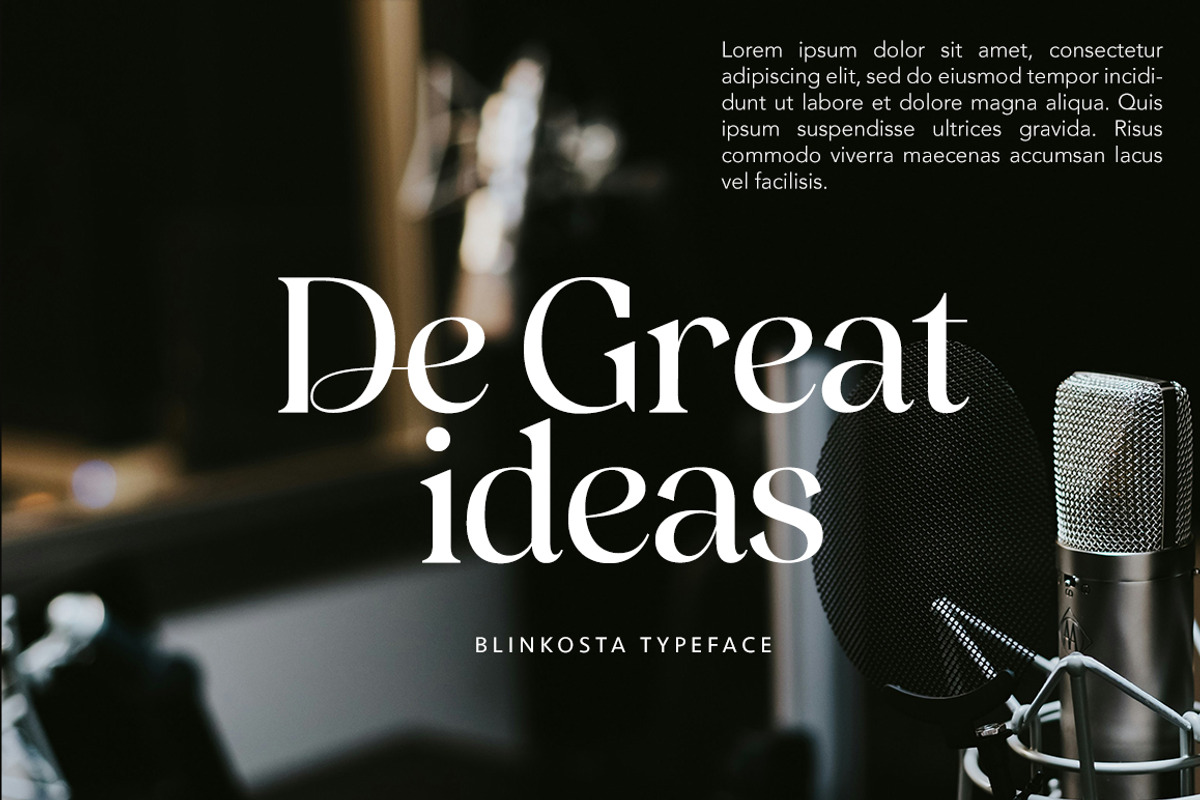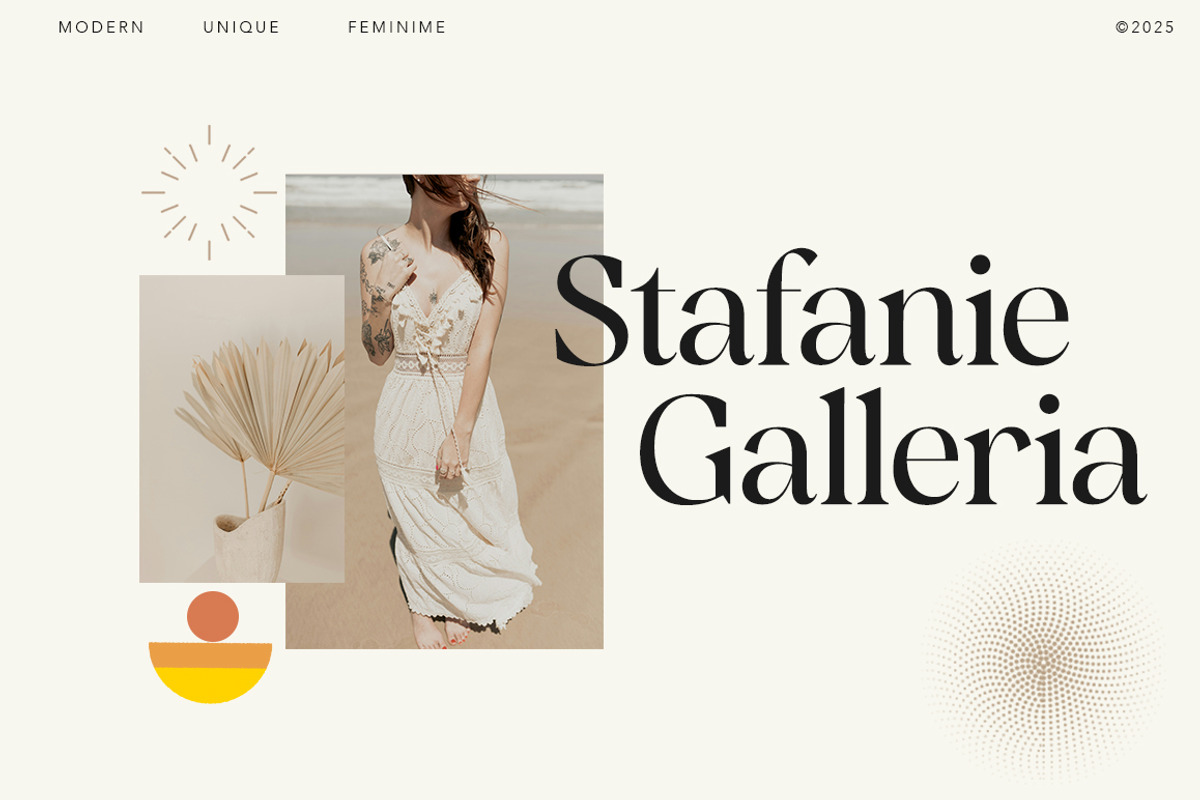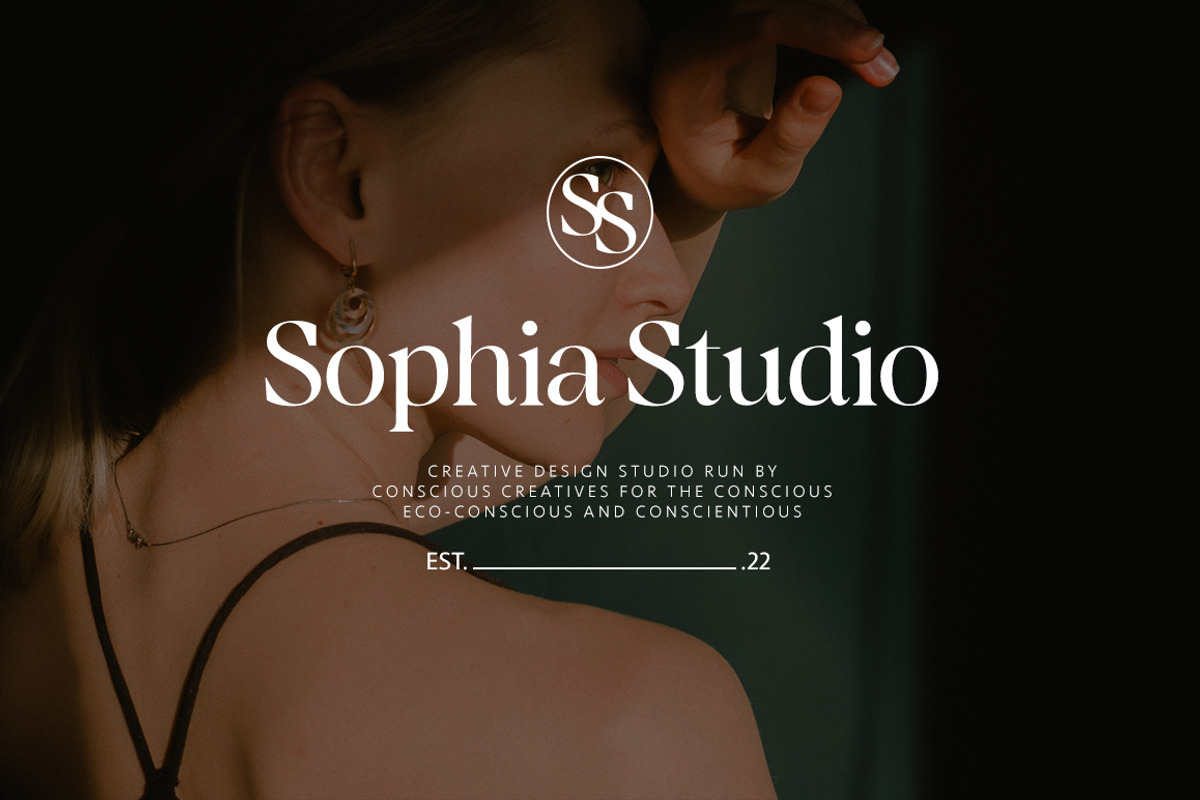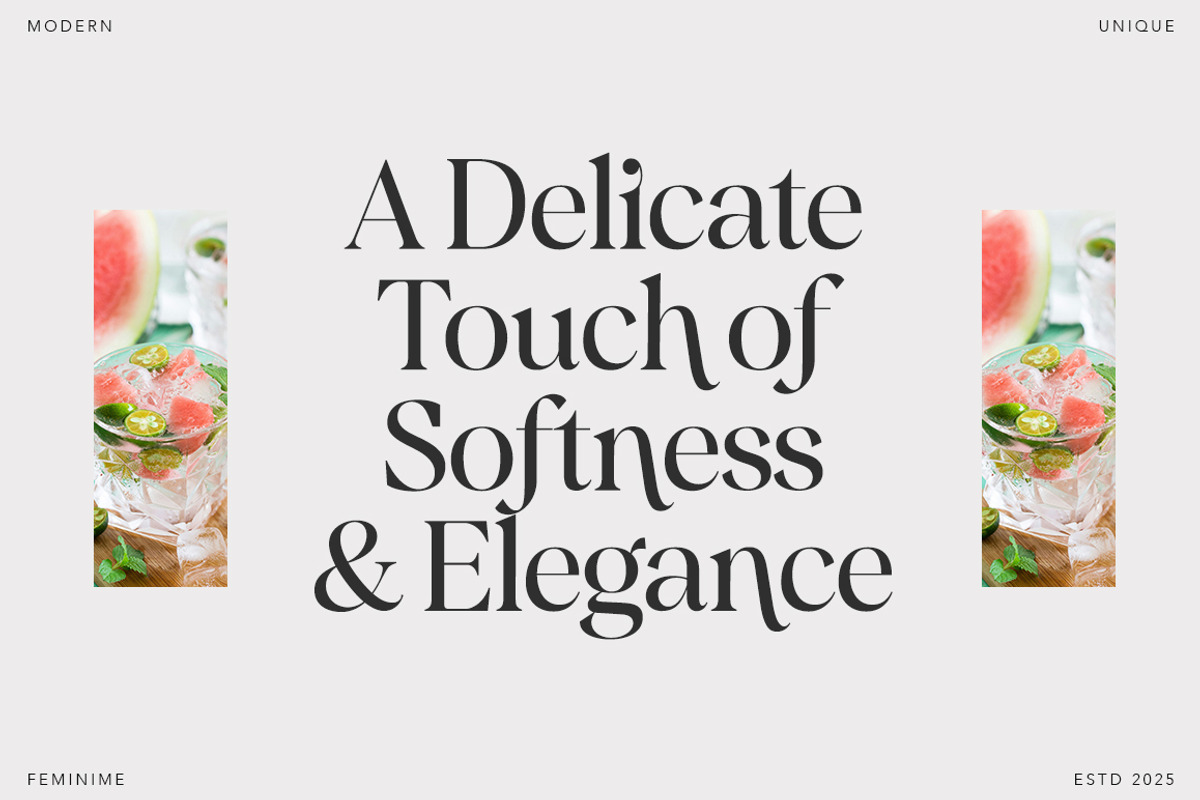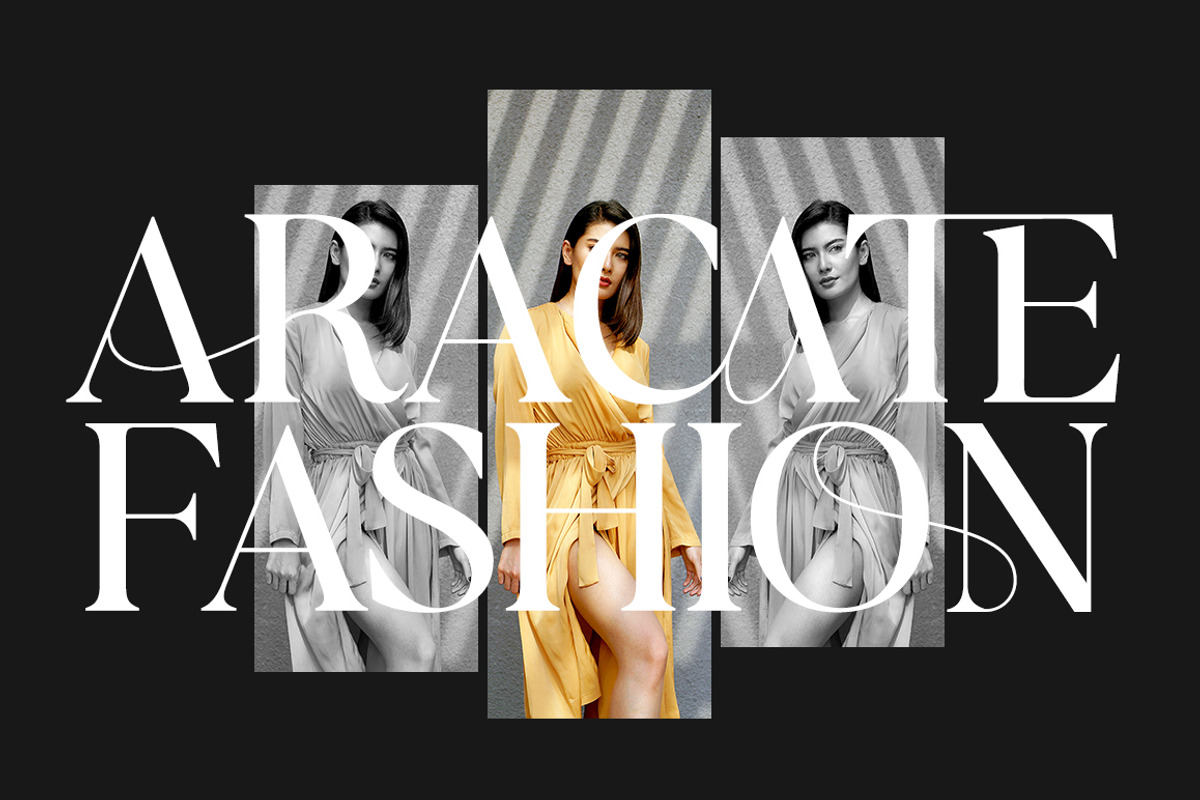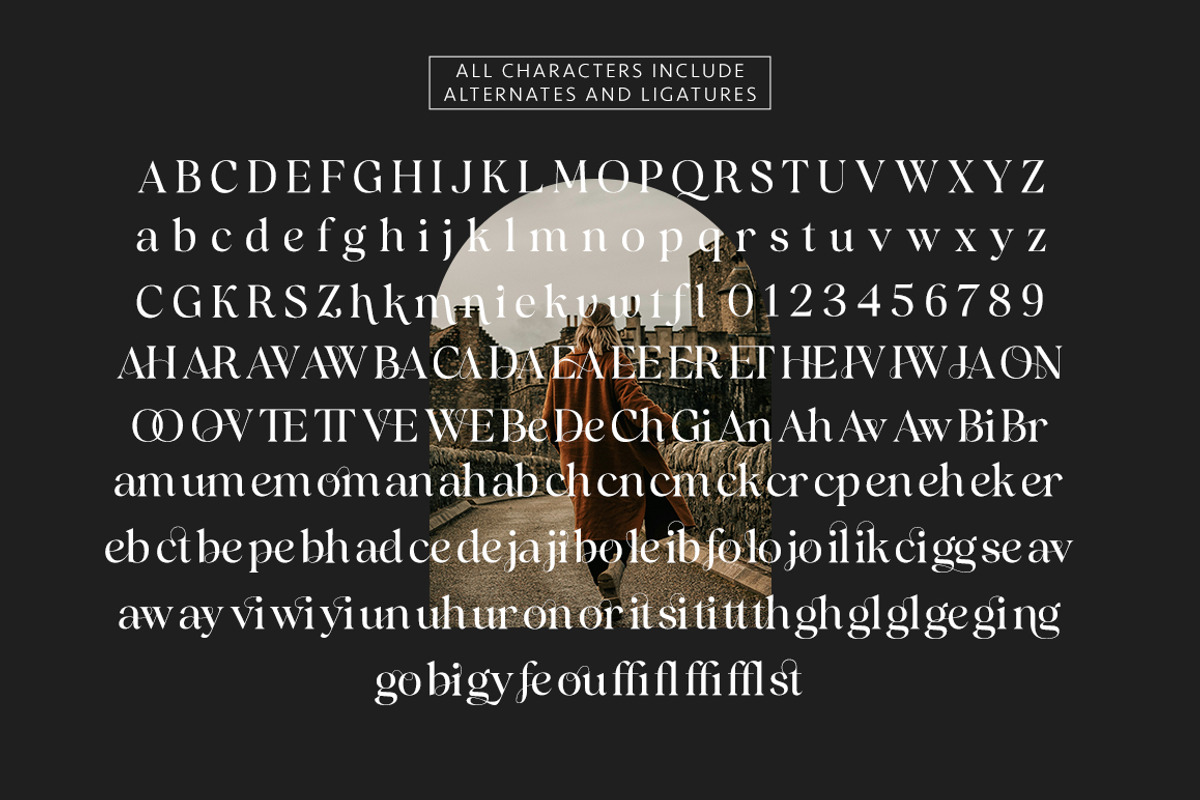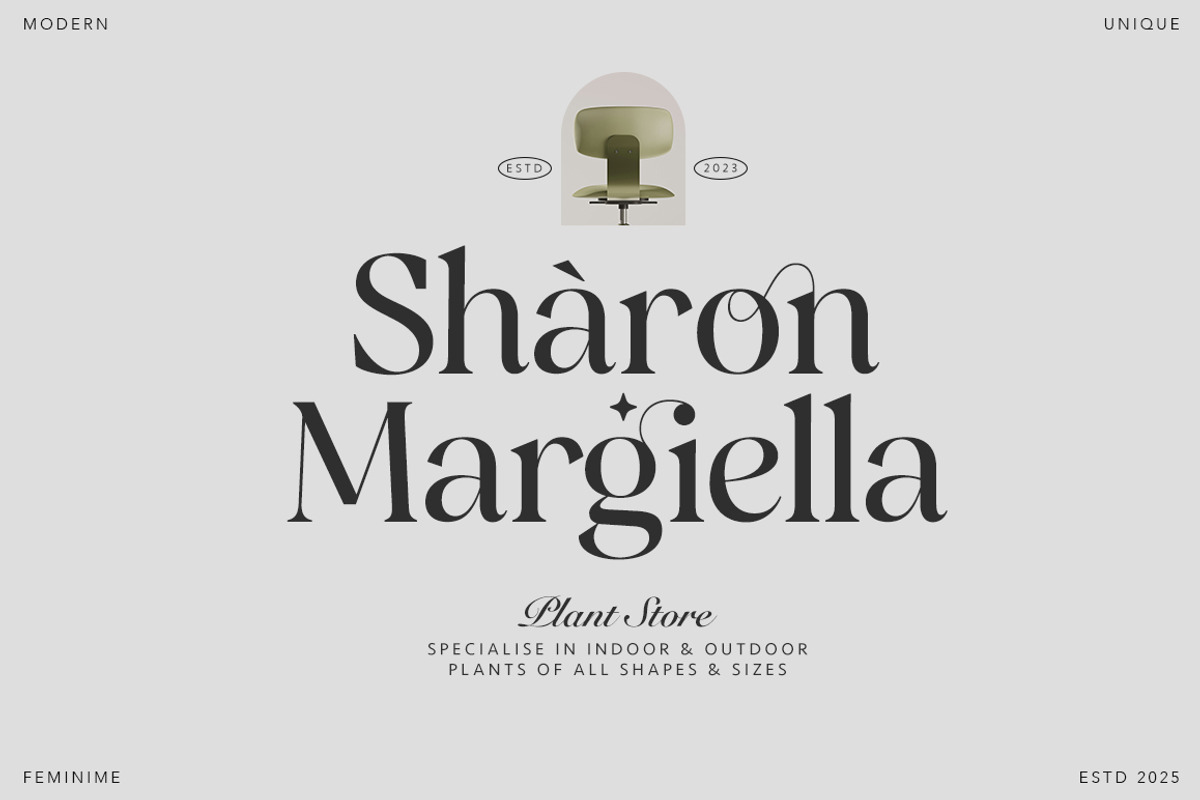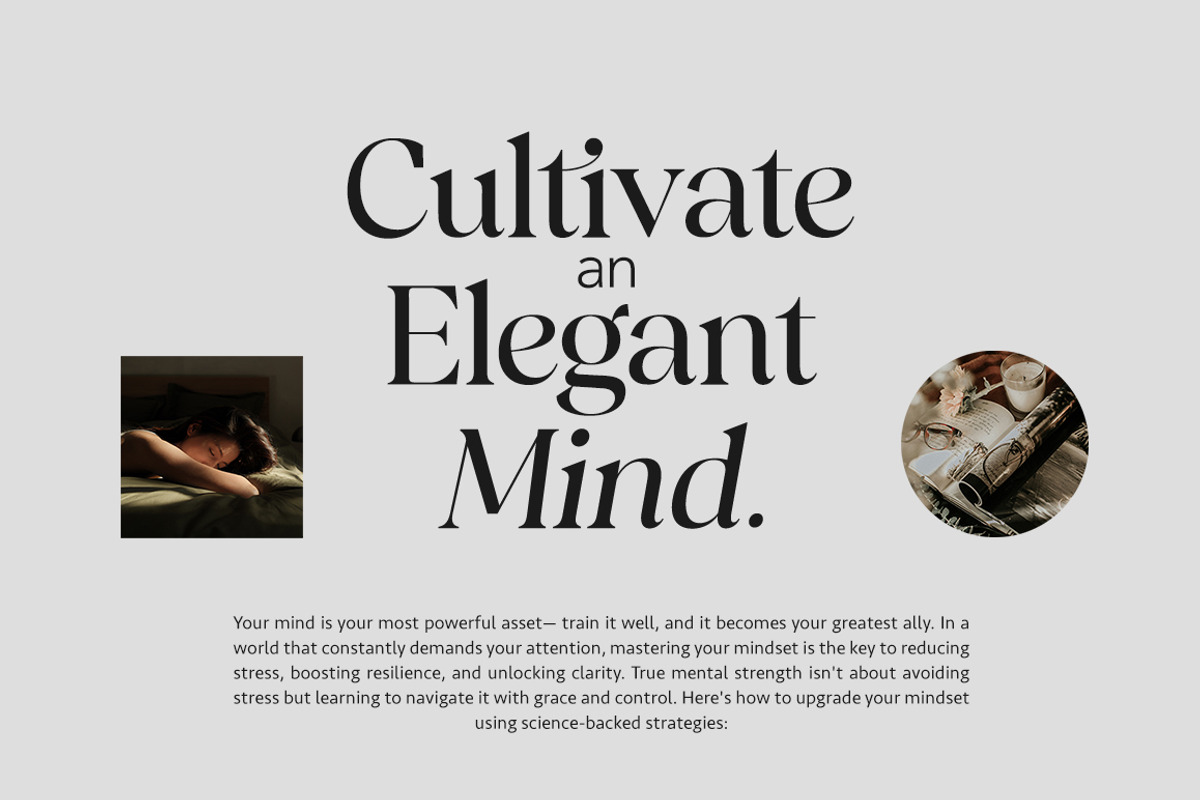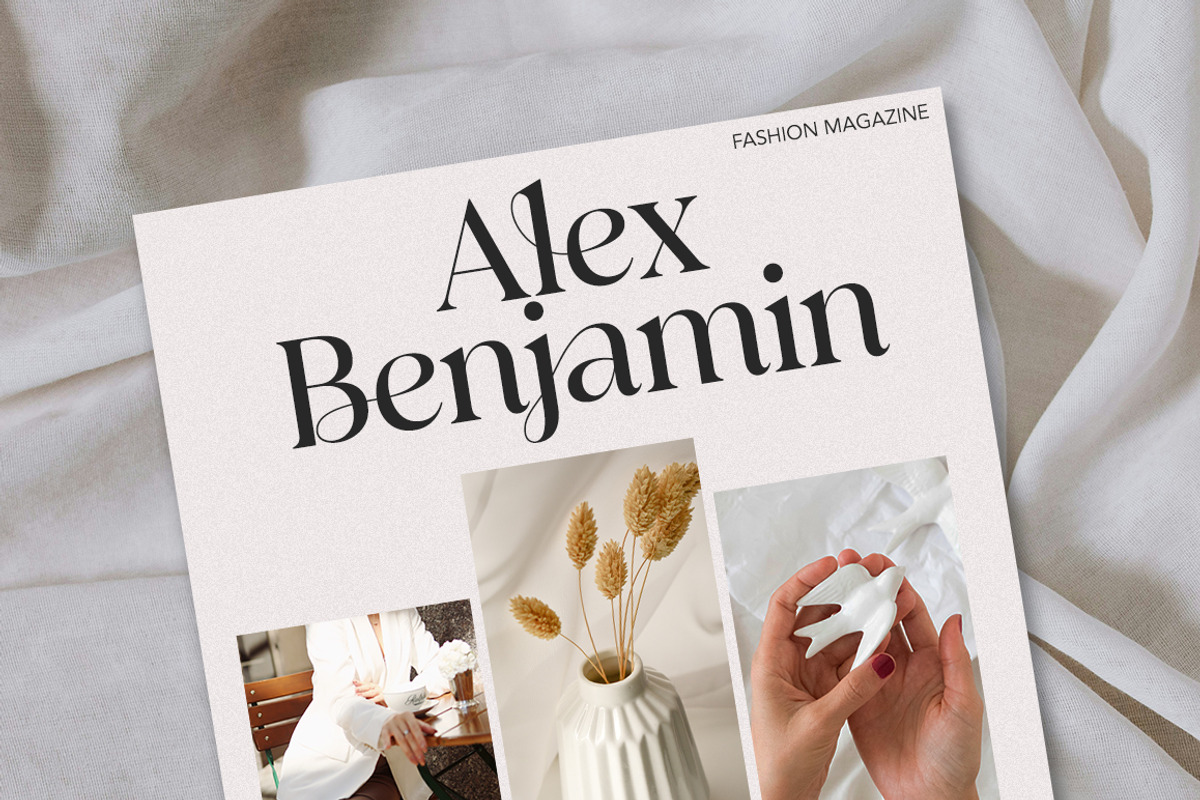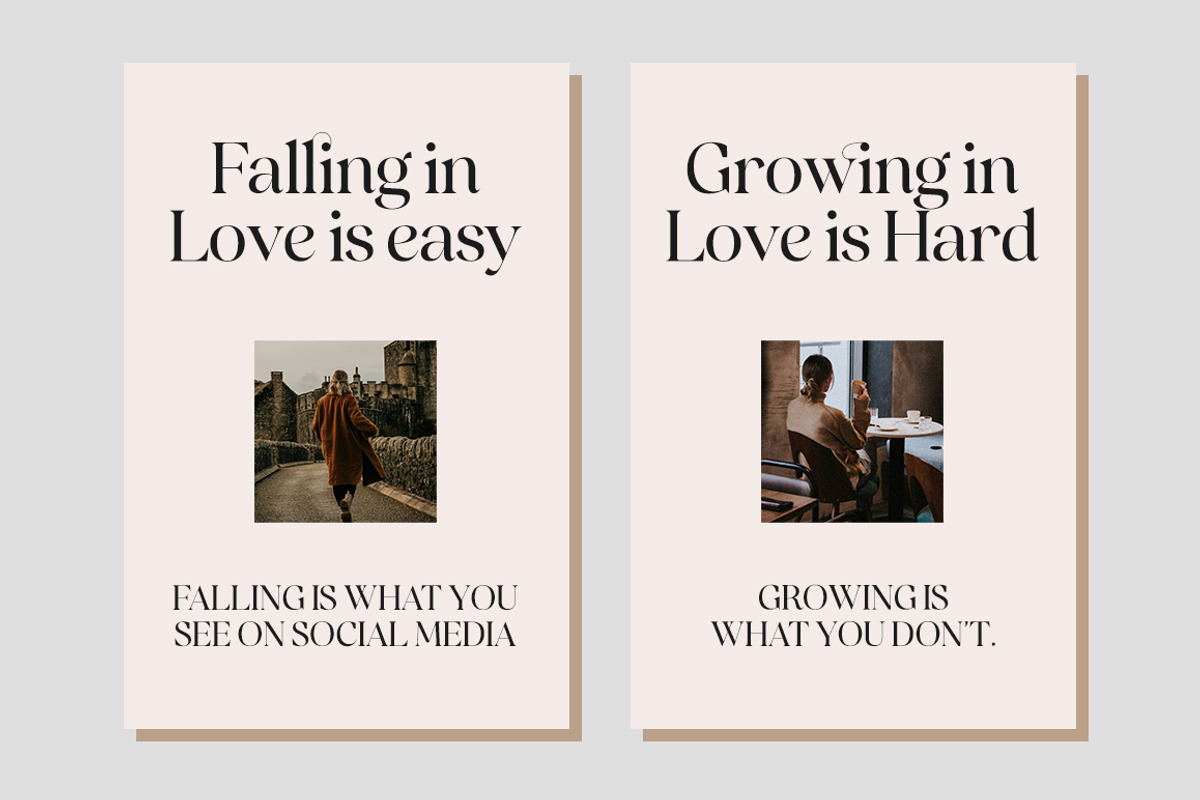
Blinkosta - Unique Ligature Serif
Blinkosta is classic ligature serif font with that extra touch of elegance. This sophisticated editorial font elevates your work through it's clean and classic visuals as well as swoon-worthy ligatures that instantly enhance your designs.
Blinkosta timeless elegance and effortlessness have influenced the sleek letters, stunning alternates and simplistic lines that find it's finishing touches through a subtly handcrafted appearance. The standard upper-and lowercase alphabet create an elegant and effortlessly sophisticated look, while alternates and ligatures add extravagance within seconds and add a whole new style to the font.
- Uppercase and Lowercase letters, discretionary ligatures & alternates